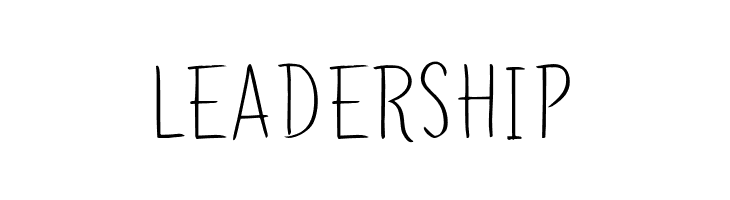
A geometric, angular font with a futuristic and bold style.
A playful, hand-drawn font with a sketch-like, textured appearance.
( Fonts by billyargel.blogspot.com - Billy Argel )
A playful, sketch-like font with a hand-drawn appearance and textured strokes.
( Fonts by Vunira Design )
A playful, hand-drawn font with bold, irregular strokes and quirky shapes.
( Fonts by Skytroopas )
A playful and bold font with quirky, uneven strokes.
A bold, futuristic font with geometric shapes and a dynamic style.
( Fonts by Alex Tomlinson - Skyhaven Fonts - shfonts.com )
A playful handwritten font with tall, narrow letters and a casual style.
A futuristic, geometric font with interconnected lines and circles.
A tall, narrow serif font with high contrast and elegant style.
An elegant serif font with sharp serifs and moderate contrast, suitable for formal and modern uses.
A bold, dynamic serif font with sharp, angular serifs and a cohesive appearance.
An elegant, calligraphic script inspired by fantasy languages.
A decorative script with flowing, intricate lines inspired by Tengwar.
An ornate, historical script with intricate flourishes and a calligraphic style.
An ornate and decorative script font with a classic German style.
A bold, high-contrast blackletter font with intricate, ornate letterforms.
A bold, geometric font with Art Deco influences and clean lines.
A geometric, art deco-inspired font with bold lines and angular curves.
A bold, geometric font with a vintage poster style.
A bold, italicized font with angular, dynamic characters.
A bold, geometric font with an expanded width and striking angular design.
A bold, geometric font with a modern and dynamic style.
A bold, italicized font with a dynamic and modern style.
A bold, italic font with high contrast and dynamic, angular design.
A bold, shadowed font with a modern, three-dimensional appearance.
Bold, italicized font with a shadow effect and dynamic, condensed characters.
An abstract, artistic font with complex line patterns and geometric shapes.
An abstract, grid-based font with geometric and artistic elements.
A decorative font with characters formed by dot matrices, offering a unique and abstract visual style.
A bold, geometric font with a pixelated, digital aesthetic.
Bold, 3D italic font with sharp angles and a modern aesthetic.
A bold, 3D outlined font with a playful, comic book style.
A bold, rugged font with a hand-drawn, ghostly appearance.